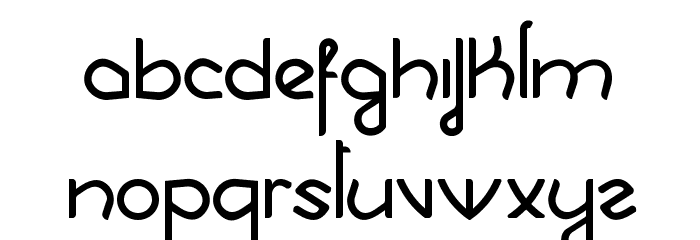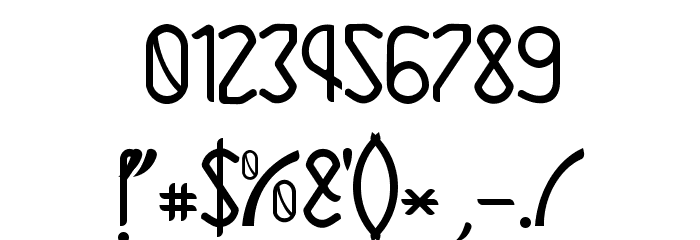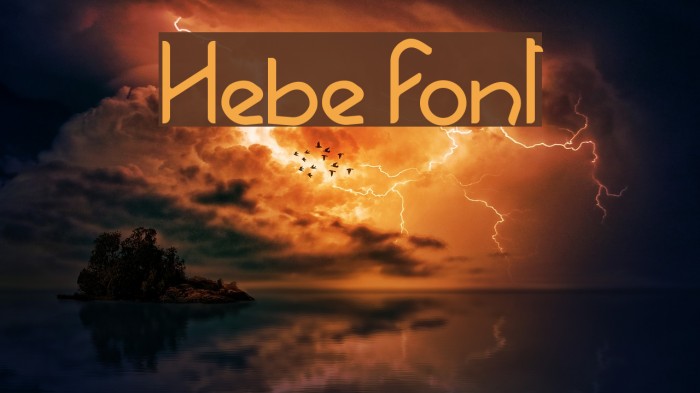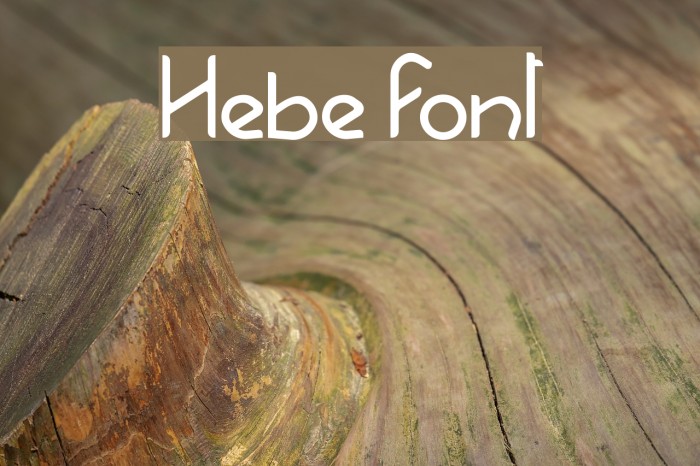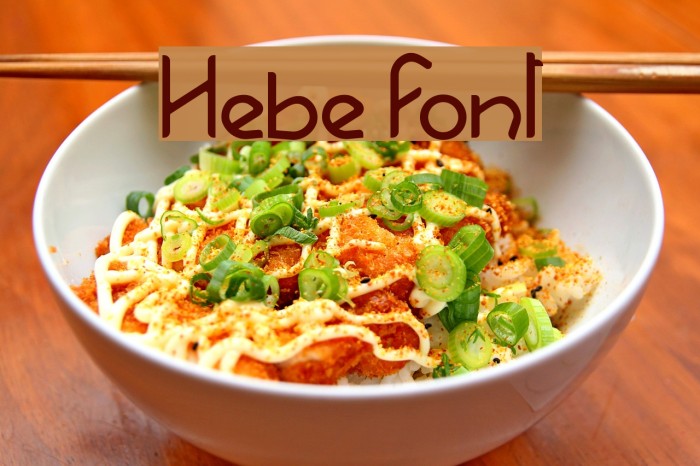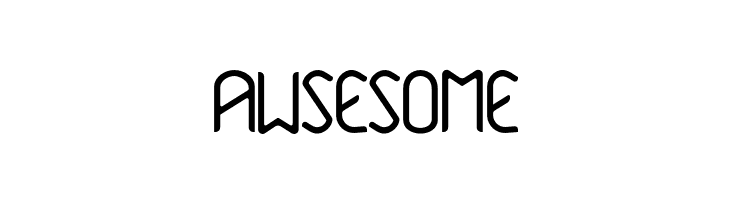
Hebe Font
This font features a playful and unique design with a handwritten style that combines both elegance and whimsy. The uppercase letters have a distinct, rounded form with a slight tilt, giving them a dynamic appearance. The lowercase letters maintain a consistent flow, enhancing readability while retaining the font's quirky charm. Numbers and special characters are crafted with the same attention to detail, ensuring a cohesive look across all text. The font's overall style is modern yet approachable, making it suitable for a variety of creative projects.
A playful, handwritten font with a modern and whimsical style.
- Proposed Projects: Ideal for children's books, greeting cards, playful branding, and creative posters.
- Use Case: Headlines, Logos, Creative projects